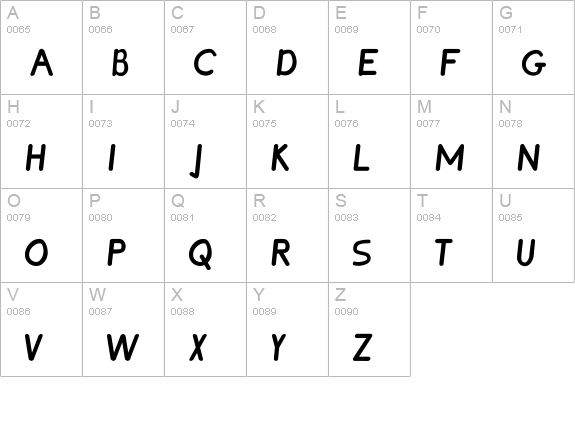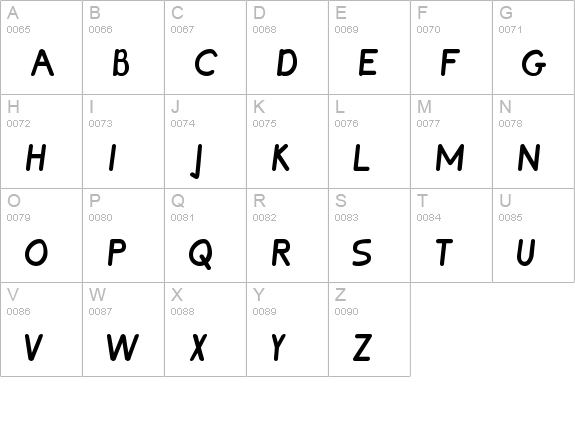
AquilliaComicHa Font Details
AquilliaComicHa is a delightful and playful font that exudes a sense of whimsy and charm. With its bold and rounded letters, this font is perfect for adding a touch of fun to any design project. Whether you're creating posters, invitations, or social media graphics, AquilliaComicHa is sure to make your text stand out. The best part? AquilliaComicHa is completely free to download at FontsMarket.com. This means you can easily add this unique font to your collection without breaking the bank. So why wait? Download AquilliaComicHa today and let your creativity soar with this fantastic font!